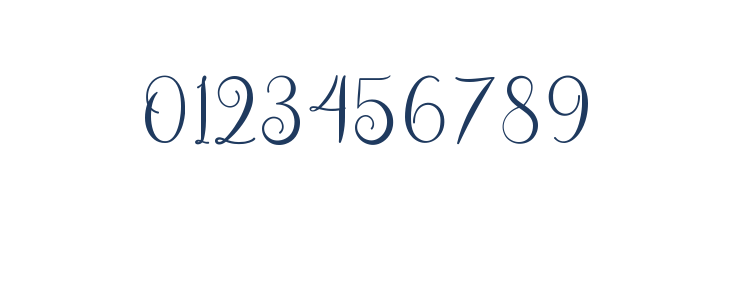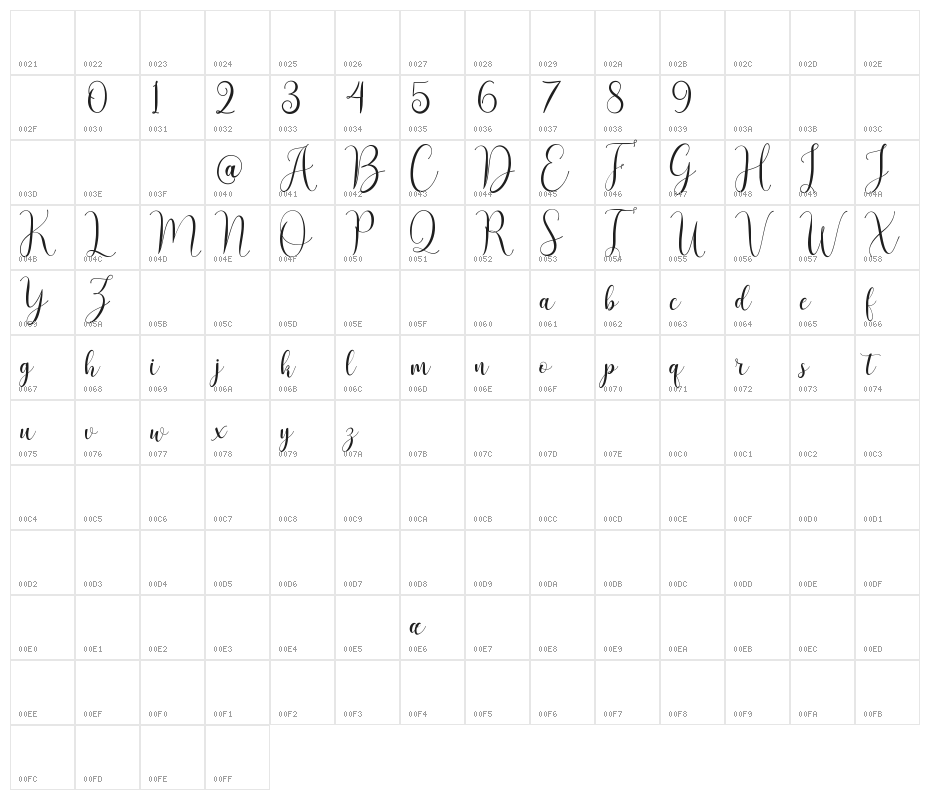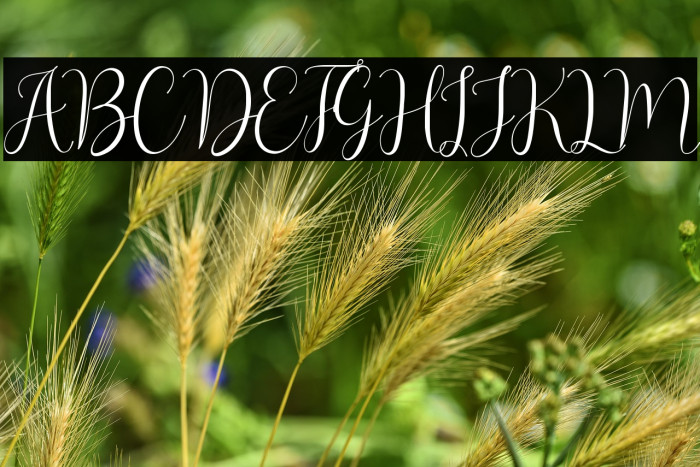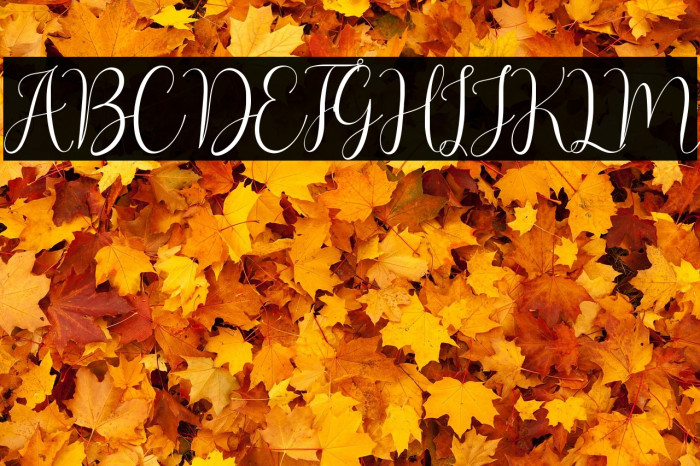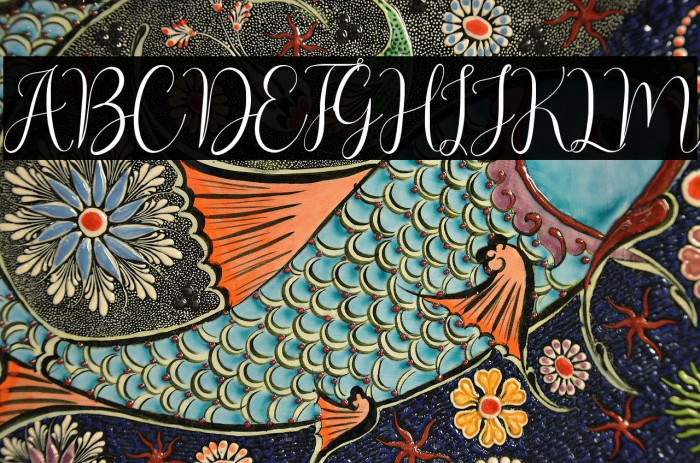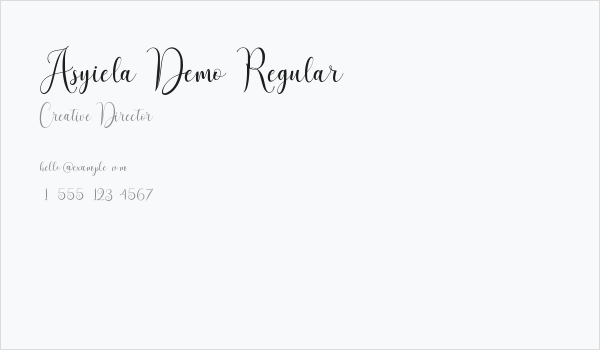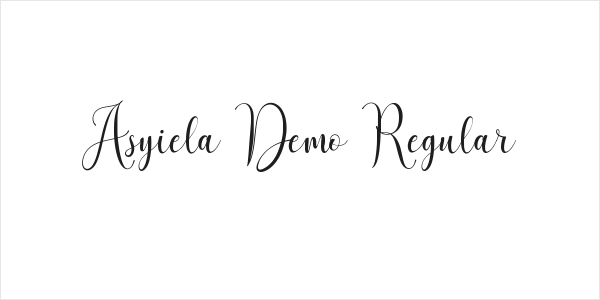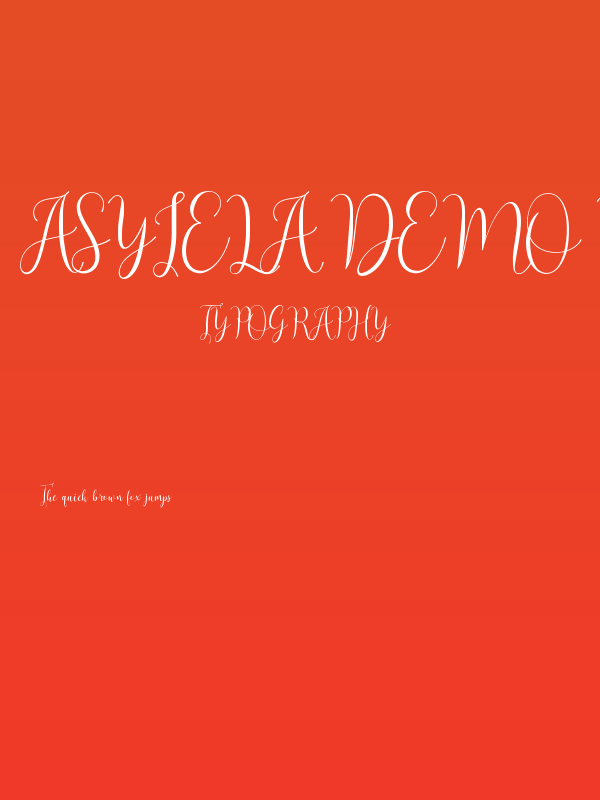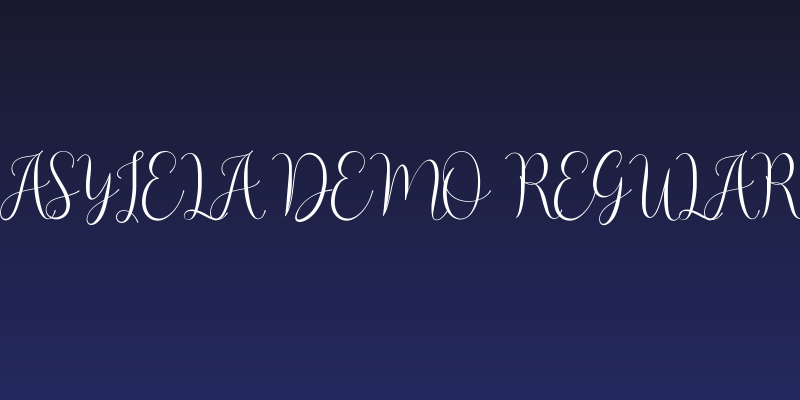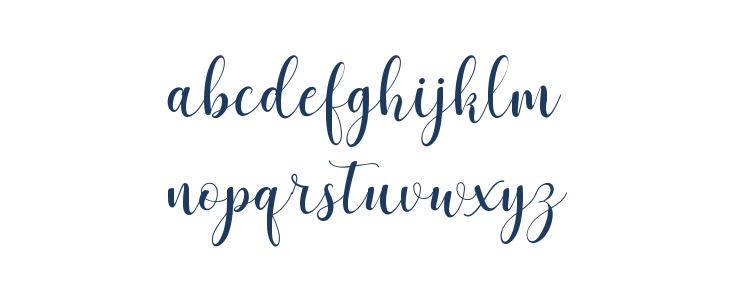
Asyiela Demo Regular Font
Asyiela Demo Regular Description
This elegant script font features a flowing, cursive style with intricate loops and flourishes. The uppercase letters are particularly ornate, showcasing a high level of detail and sophistication. The lowercase letters maintain a consistent style, offering a smooth and graceful appearance. The numerals are uniquely styled, with a touch of whimsy that complements the overall aesthetic. This font is perfect for adding a touch of elegance and charm to any design project, making it ideal for invitations, branding, and decorative purposes.
Overall StyleElegant and Decorative
Use CaseLogos, Invitations, Decorative text
Proposed ProjectsIdeal for wedding invitations, elegant branding, greeting cards, and decorative signage.